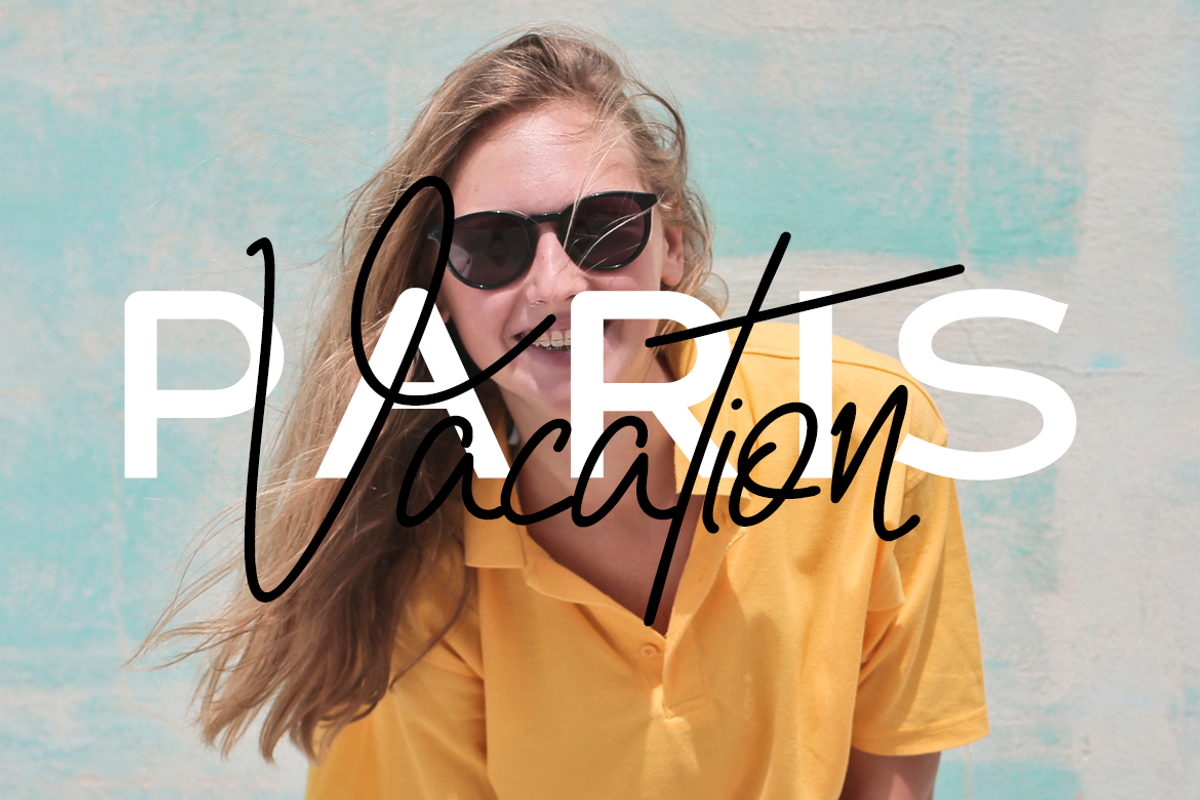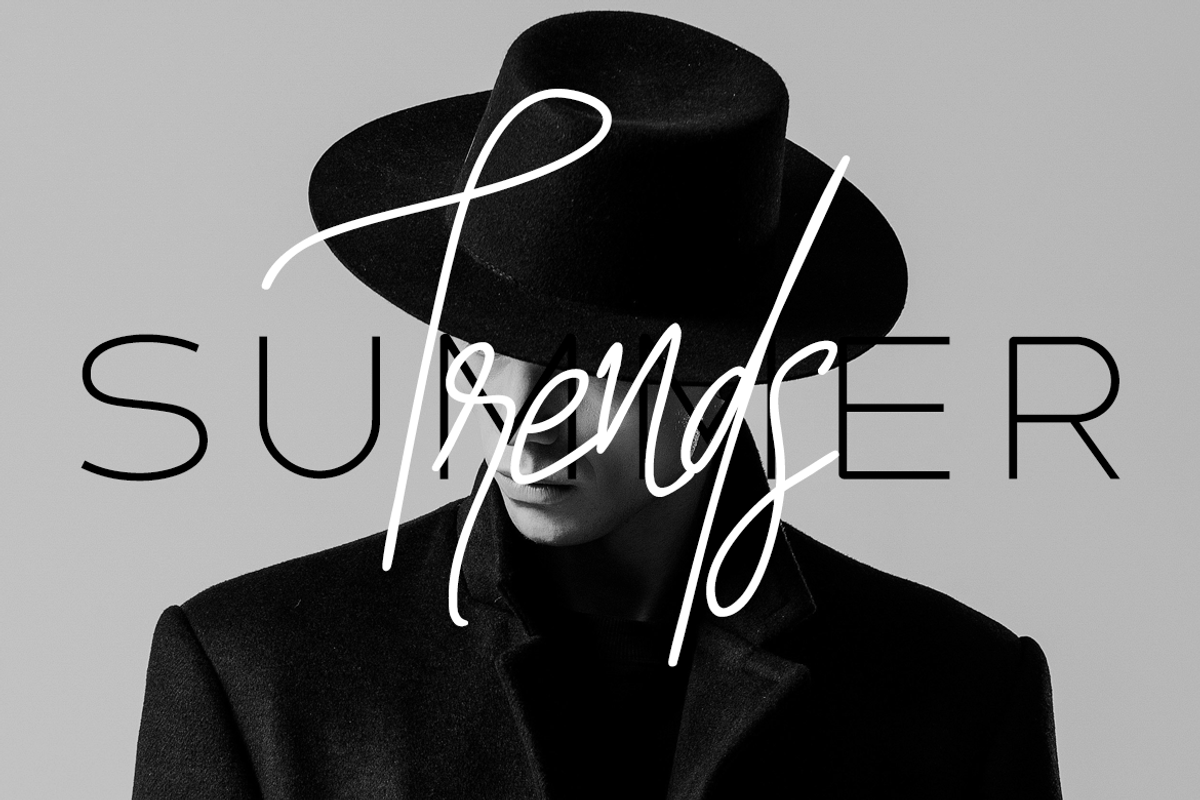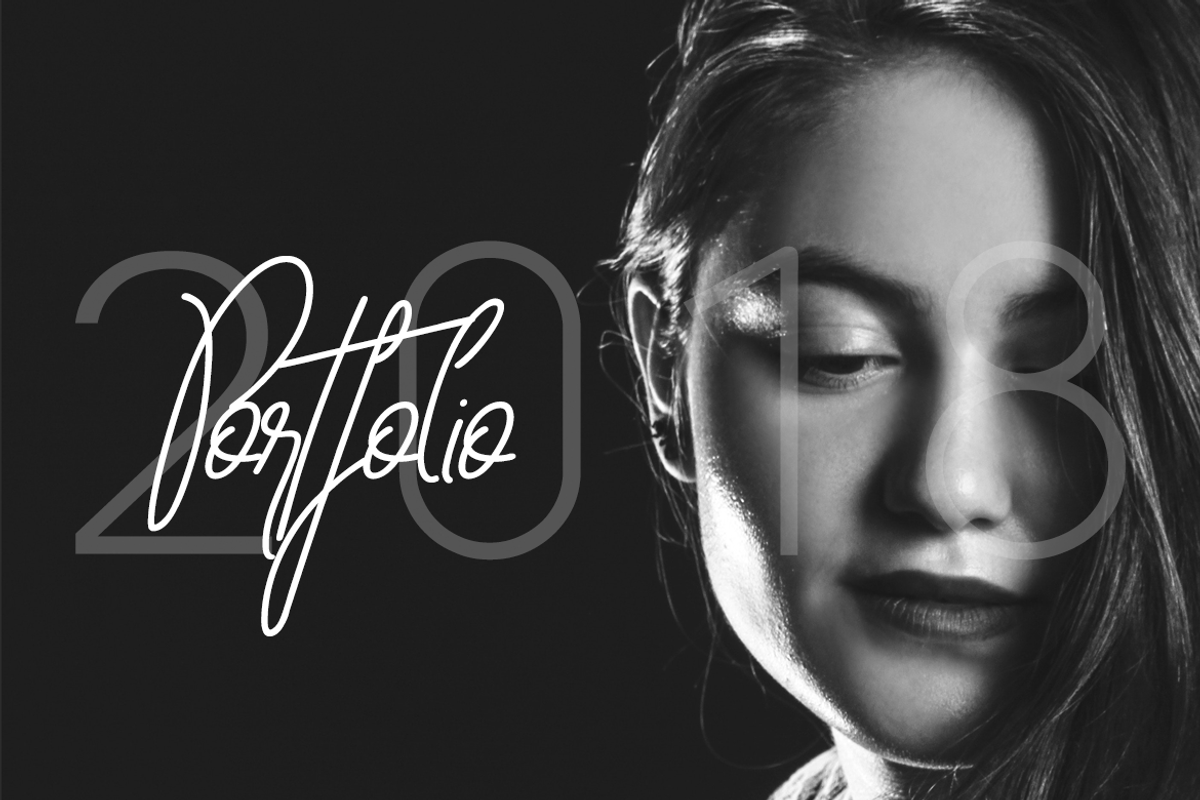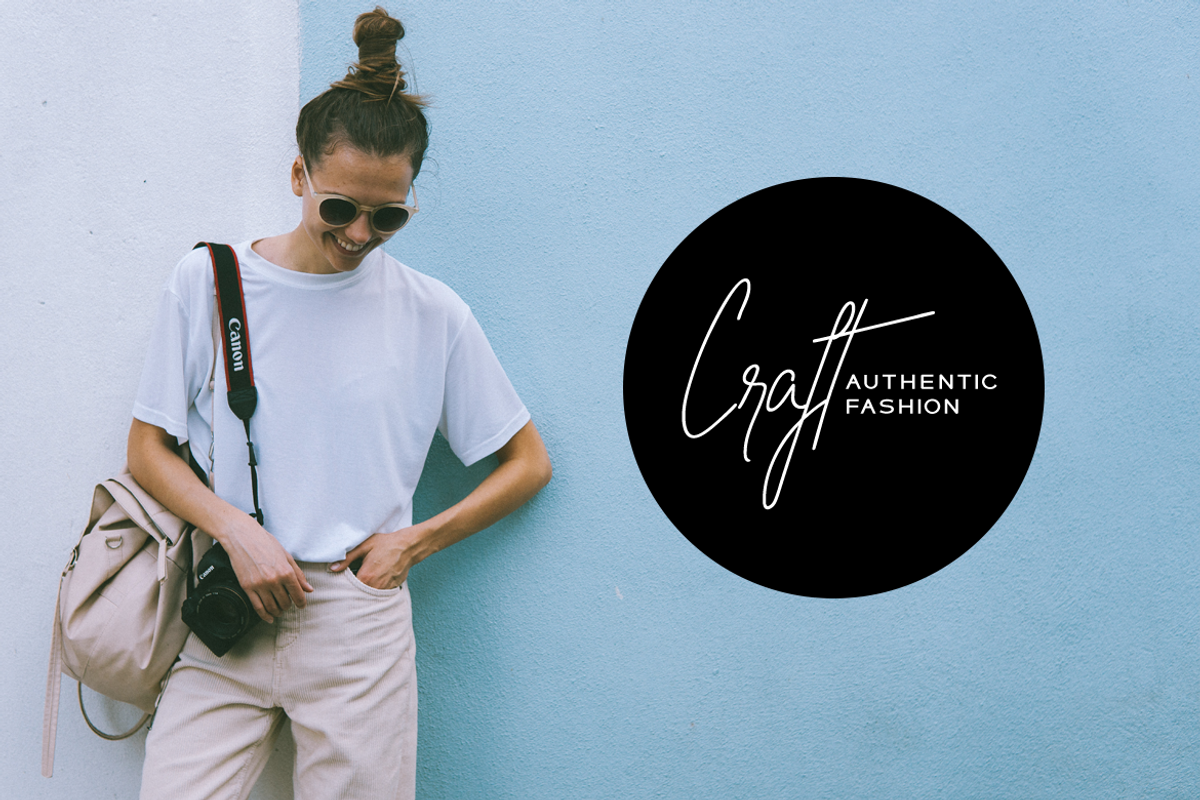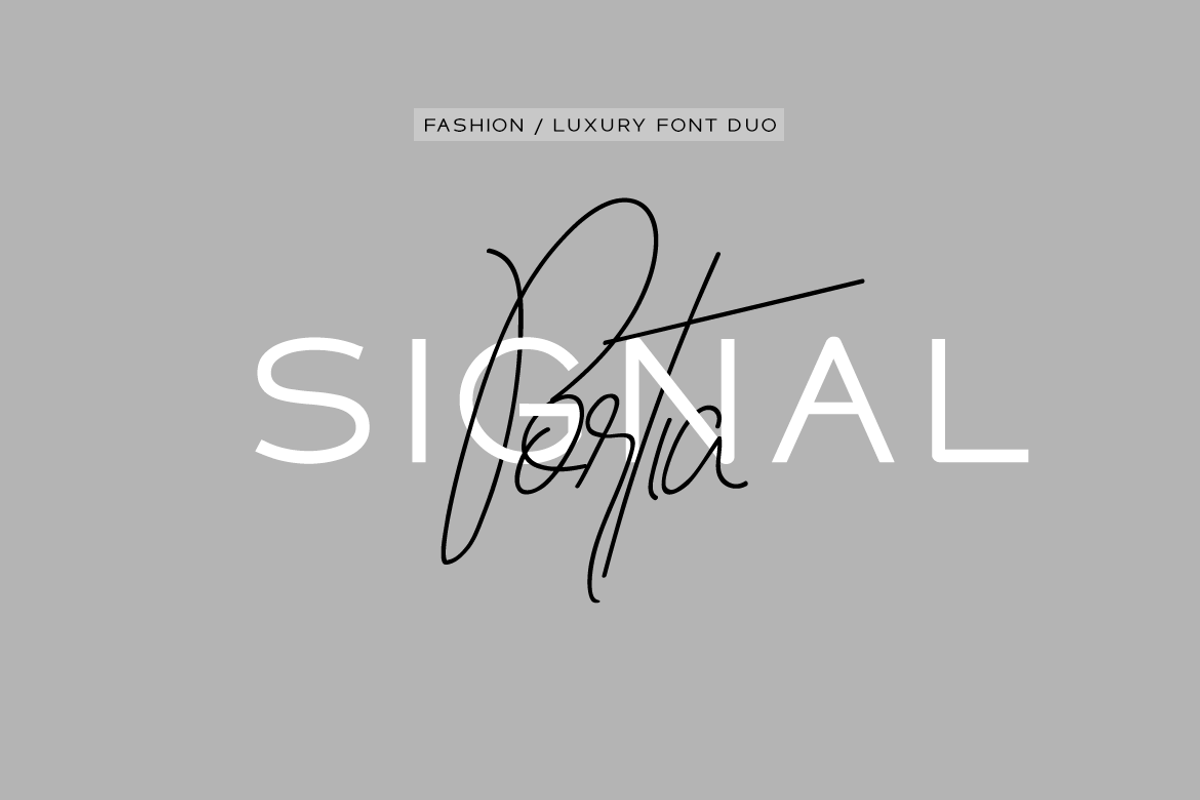
Portia & Signal Duo - Fashion Fonts
This is a beautiful fashion font duo that combines our fonts Portia-Mora and Signal. This duo is perfect for makes for amazing logos, fashion posters, wedding invitations, blog posts, social media, and anything in between! Please see the examples shown above to get an idea about the capability of this typeface.
Portia-Mora Typeface Complete Family (worth $23) including 4 weights (Thin, Light, Regular, Bold) made with custom brushes having different properties for distinguished look and feel.
SIGNAL Typeface Complete Family (worth $39) including 5 weights (Light / Normal / Bold / XtraBold / Heavy).